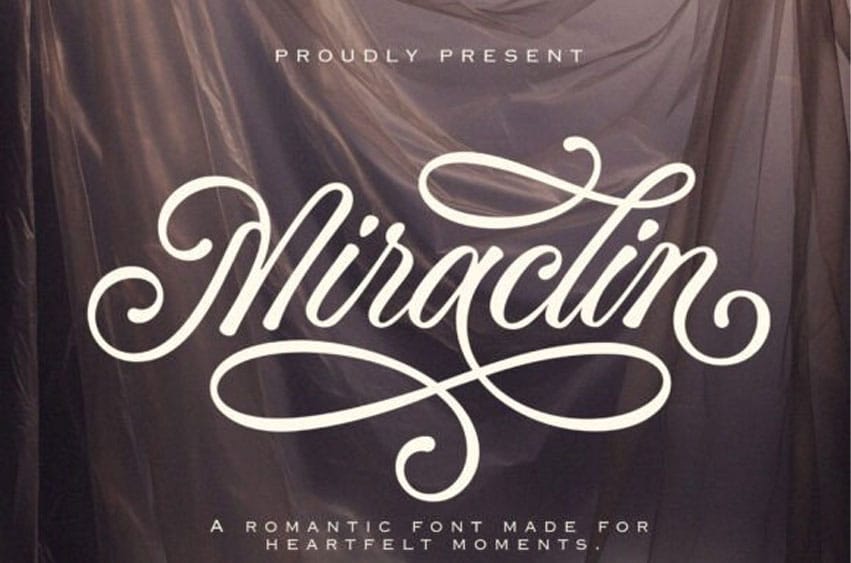
Miraclin Font is an intensely romantic script font, handcrafted with dramatic, flourishing swashes and elegant, sweeping curves for heartfelt moments.
This luxurious typeface is characterized by its high-contrast strokes and exaggerated loops, instantly conveying a sense of ornate, vintage calligraphy and high-end charm.
The Miraclin font is designed with beautiful alternate characters and ample swashes, allowing for sophisticated and highly customized titles and logotypes.
Use the Miraclin script font to elevate wedding invitations, luxury brand identity, high-end packaging, and any design that requires a deeply romantic and unforgettable classic aesthetic. The opulent details of the Miraclin typeface ensure every word feels precious, unique, and profoundly elegant.